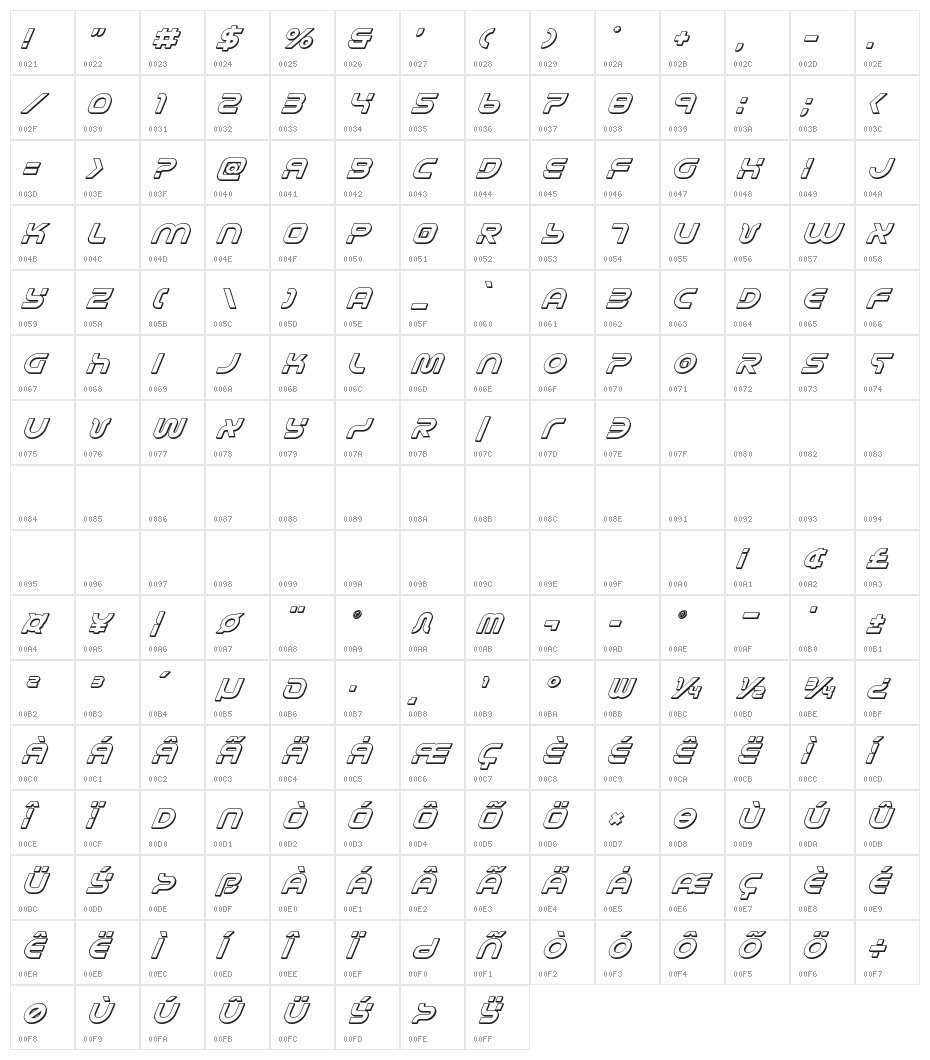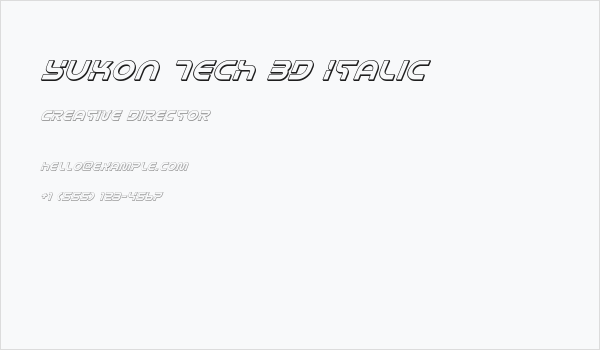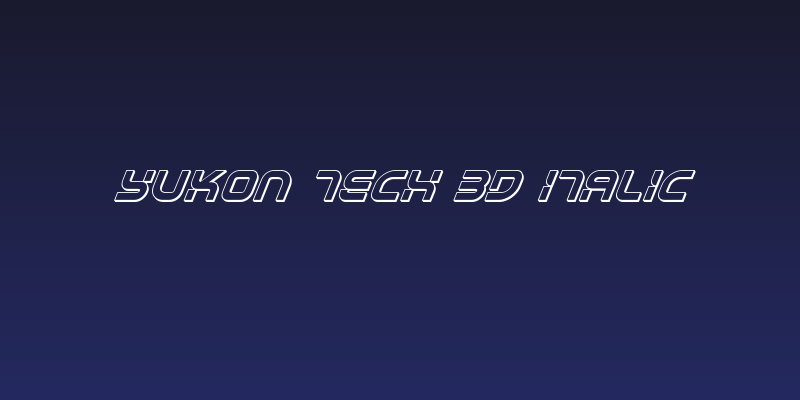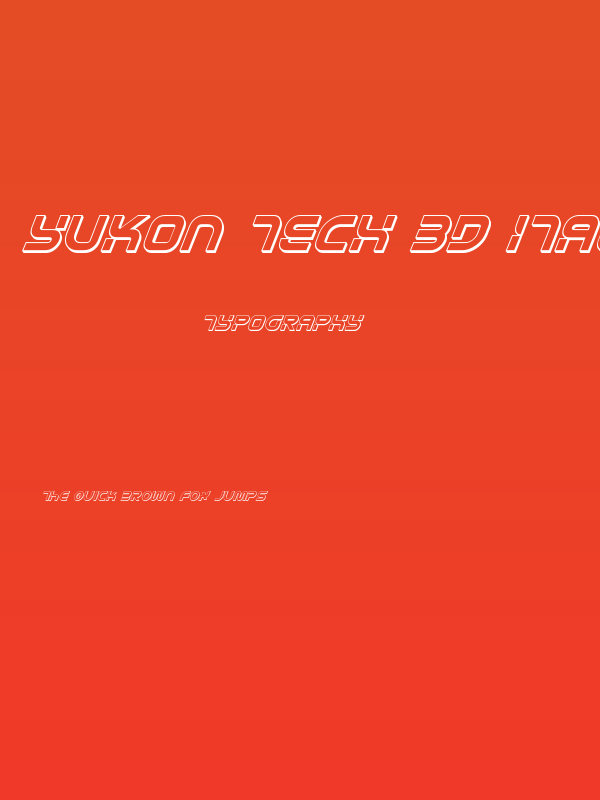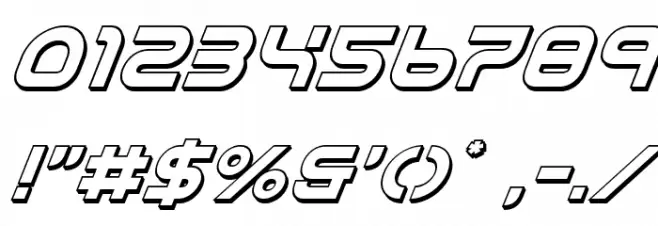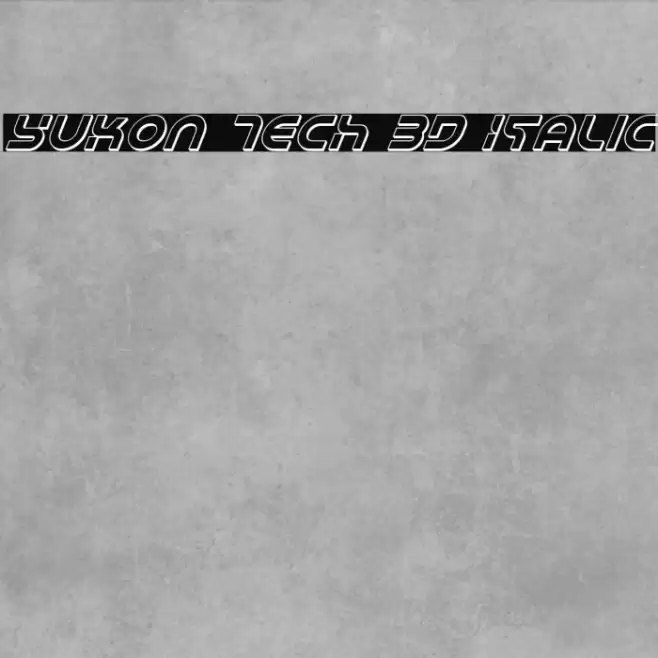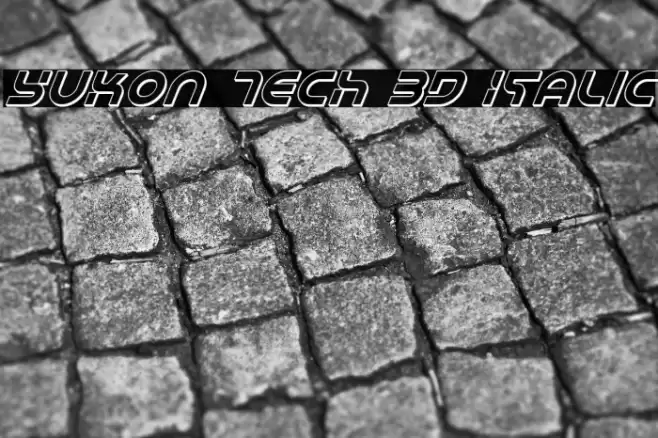
Yukon Tech 3D Italic Font
Yukon Tech 3D Italic Description
This font features a futuristic and dynamic design with a 3D effect that gives it a sense of depth and movement. The characters are bold and italicized, with a distinct slant that enhances their modern appeal. The outlines are clean and sharp, creating a strong visual impact. The font is well-suited for projects that require a tech-savvy and innovative look. Its unique style makes it ideal for branding, logos, and headlines where a standout appearance is essential. The character set includes uppercase and lowercase letters, numbers, and a variety of special characters, ensuring versatility in design applications.
| Proposed Projects | Ideal for tech branding, futuristic logos, innovative product packaging, and eye-catching headlines. |